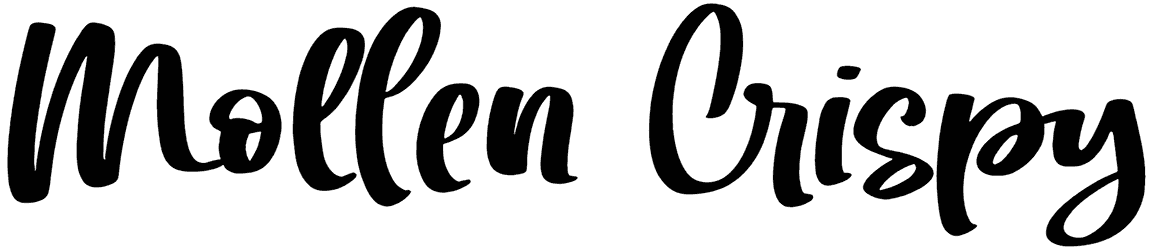
Mollen Crispy Font
It doesn’t matter whether you want to use Mollen Crispy in posters, illustrations, book covers, magazines, or invitations; this script font can make your artwork look more interesting to the audience.